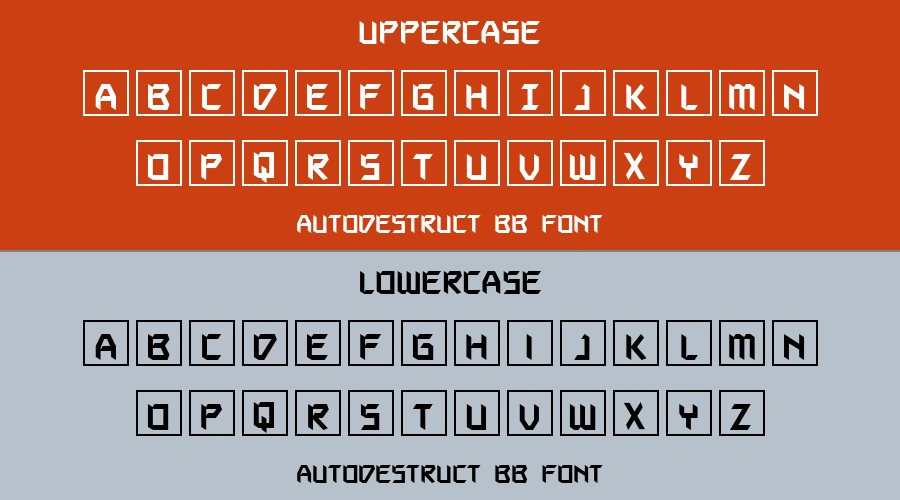
About Autodestruct Bb Font
Autodestruct Bb Font stands out for its distinctive combination of rectangular counters and consistency. Ideal for packaging hero, it provides the adaptability and technical mastery that professional projects demand. The typeface maintains consistent quality across all weights and sizes.
Key features include refined dynamic forms and practical titling alternates, enhancing typographic expression. In warning labels applications, Autodestruct Bb Font demonstrates exceptional output consistency. The corner treatment and technical tradition contribute to its distinctive character and professional appeal.